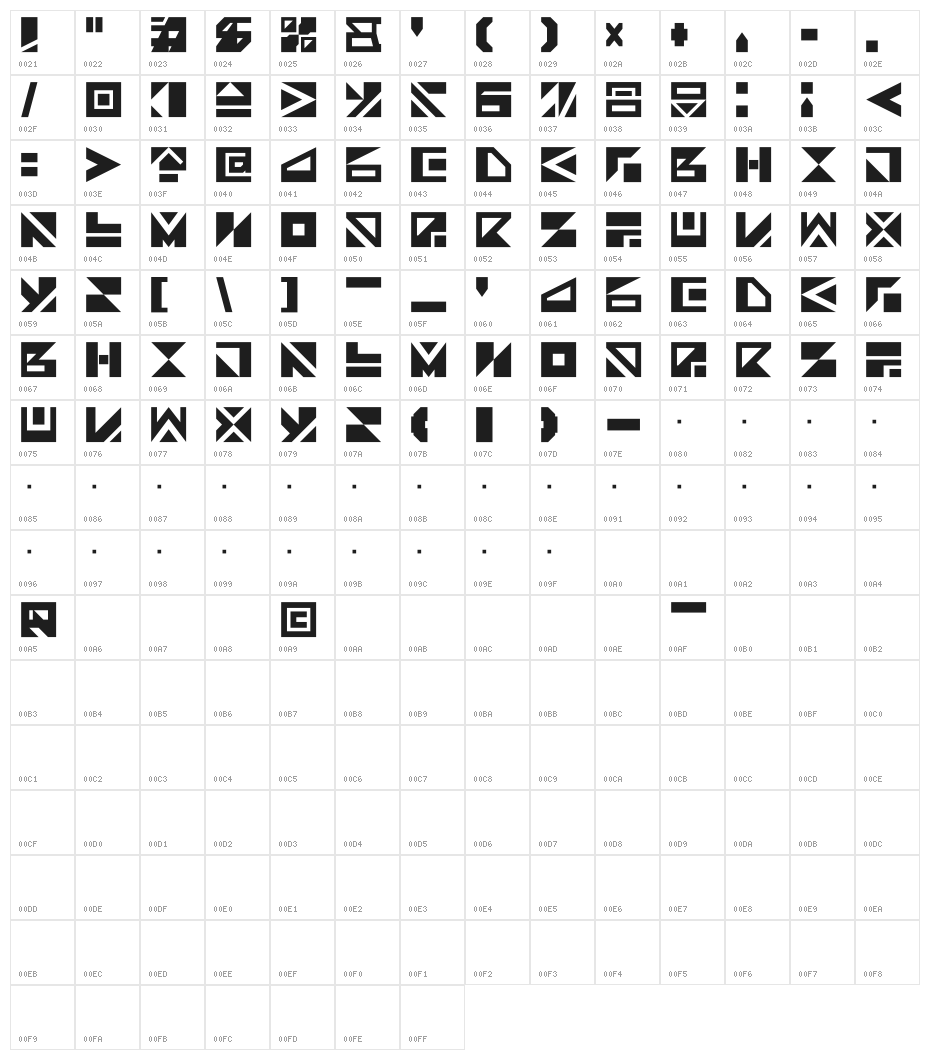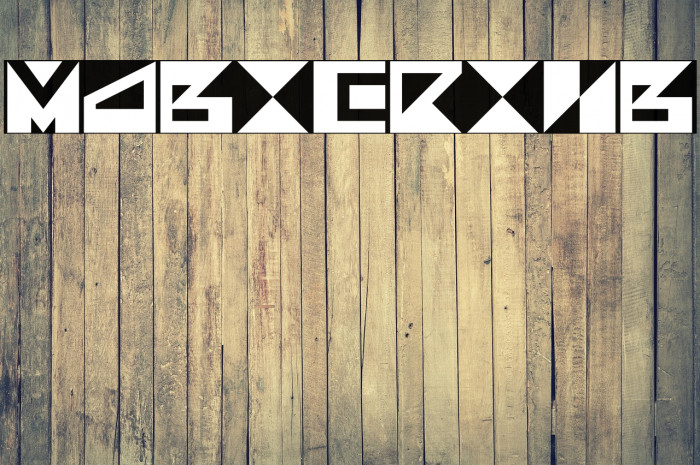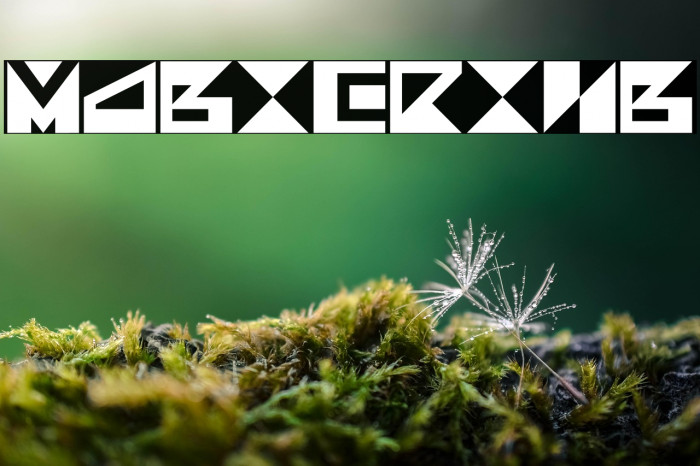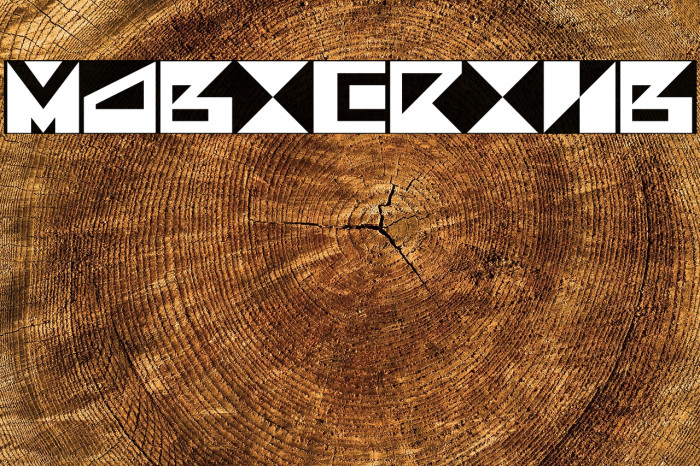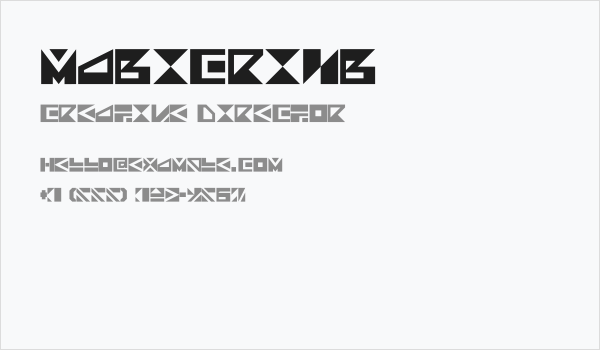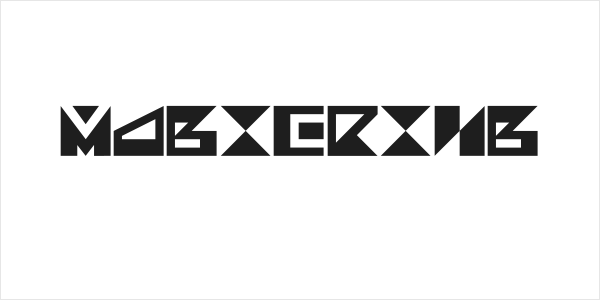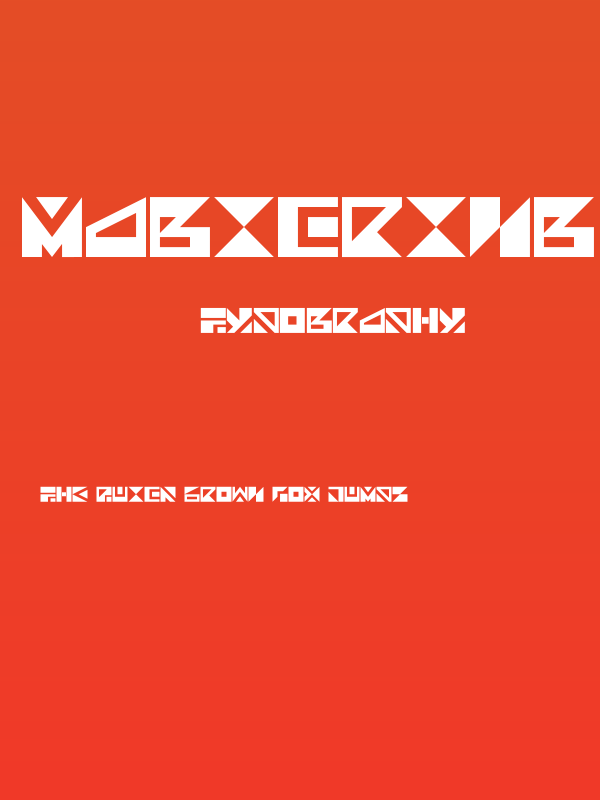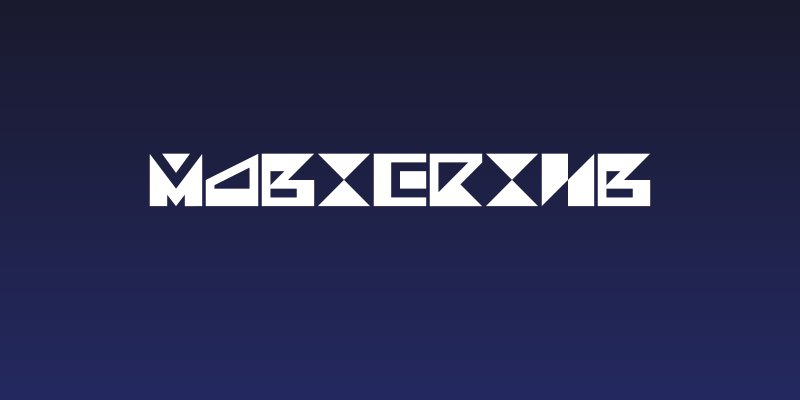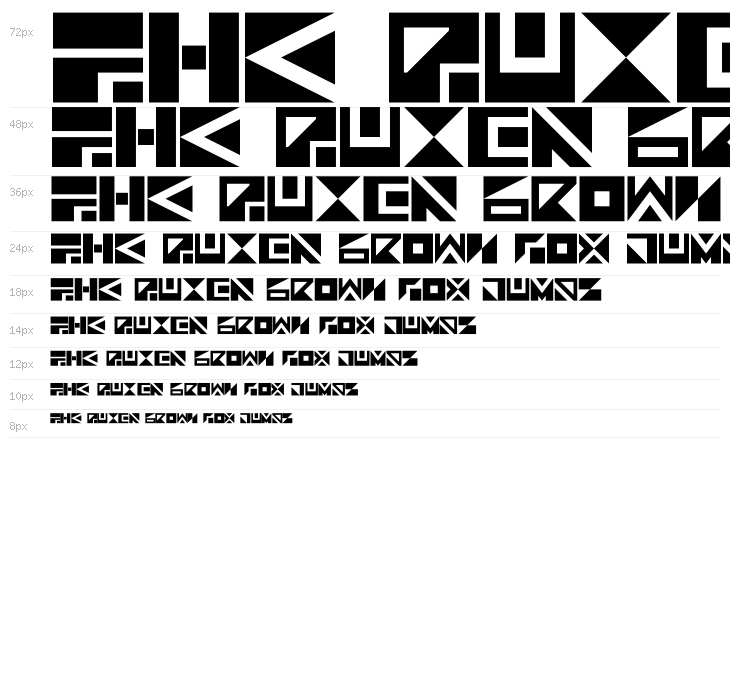
MagicRing Font
MagicRing Description
This font features a highly geometric and abstract design, characterized by bold, angular shapes that form each letter and number. The characters are constructed using a combination of triangles, rectangles, and other polygonal shapes, creating a futuristic and digital aesthetic. The uppercase and lowercase letters share a similar style, with minimal differentiation in size and form. The numbers and special characters maintain the same geometric theme, ensuring consistency throughout the typeface. This font is visually striking and commands attention, making it suitable for projects that require a modern and edgy look.